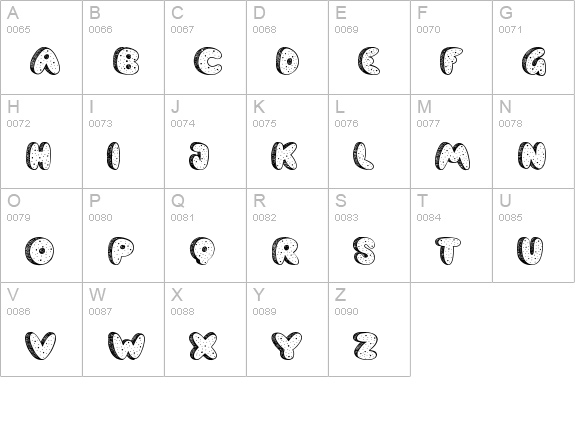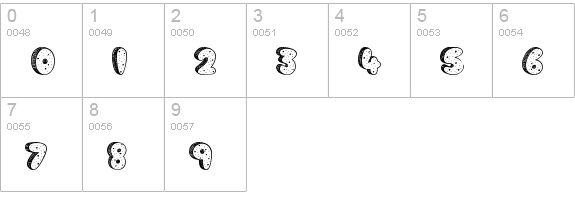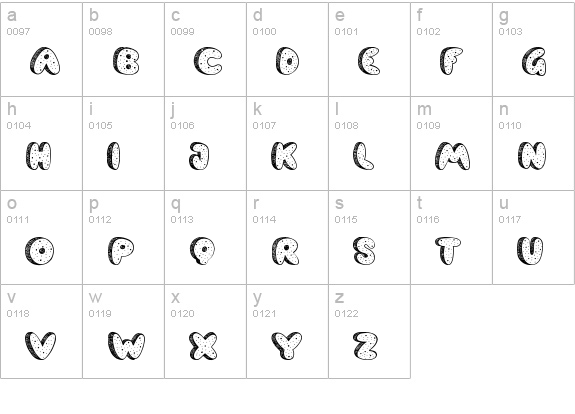
Cookie Dough Font Details
Introducing Cookie Dough font, a delightful and whimsical typeface that will satisfy your cravings for a sweet and charming design. This font captures the essence of freshly made cookie dough, with its soft curves and playful appearance. Every letter is infused with the warmth and nostalgia of homemade cookies straight from the oven. Cookie Dough font is the perfect choice for a wide range of design projects. Whether you're creating a children's book, a bakery logo, or a party invitation, this font will bring a touch of sweetness and joy to your creations. Its versatility allows it to be used in both digital and print media, ensuring that your designs will always look their best. And the best part? Cookie Dough font is available for free! You can easily download this font and start using it in your projects right away. Simply visit FontsMarket.com, where you'll find a vast collection of high-quality fonts, including Cookie Dough. With just a few clicks, you can have this delightful typeface at your fingertips, ready to add a sprinkle of deliciousness to your designs. Don't miss out on the opportunity to enhance your designs with the irresistible charm of Cookie Dough font. Download it for free today at FontsMarket.com and let your creativity soar with every bite of this delectable typeface.